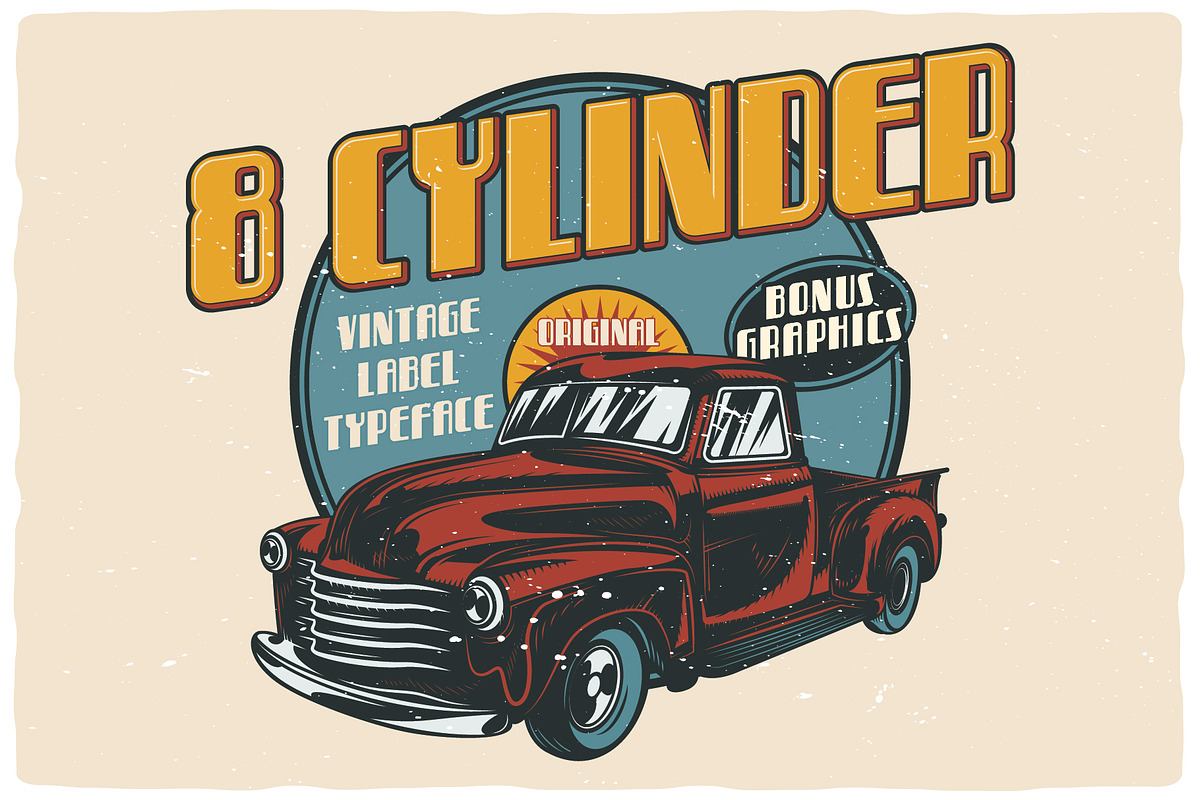
Eight Cylinder Font Free Download is a strong, industrial-inspired typeface designed to give your designs a powerful, mechanical edge. With its bold, geometric shapes and sturdy structure, Eight Cylinder is perfect for automotive branding, mechanical design projects, tech logos, posters, and any design that needs a robust, energetic feel.
Eight Cylinder Font Free Download combines futuristic and industrial elements, making it ideal for projects related to technology, automotive, or even sports branding. Its strong presence and clean lines ensure that your typography stands out with precision and style.